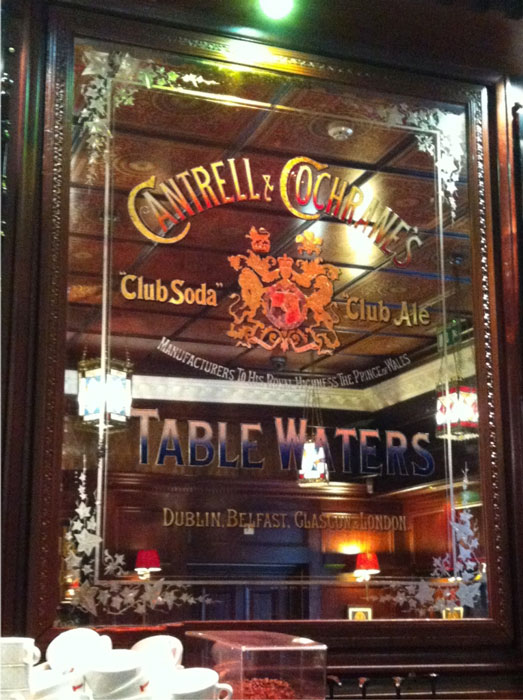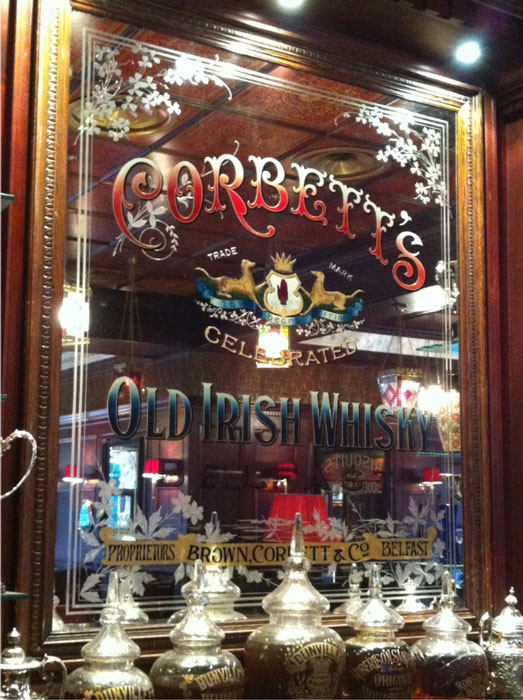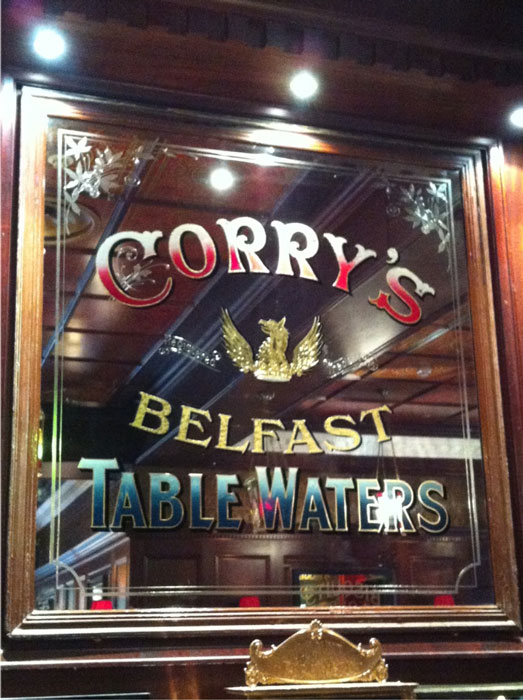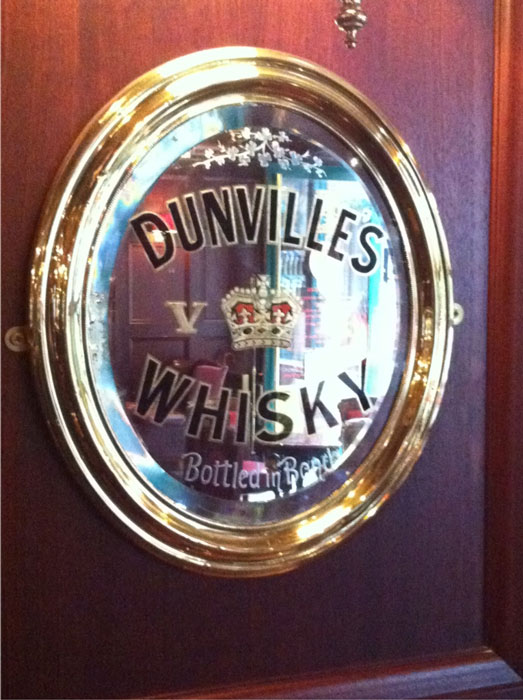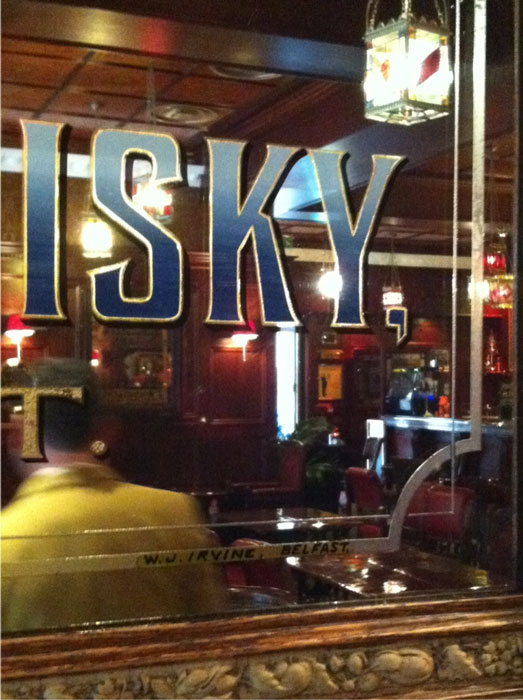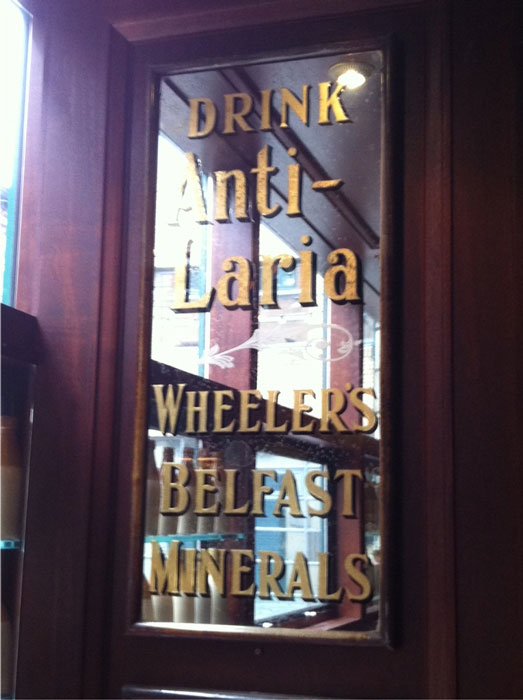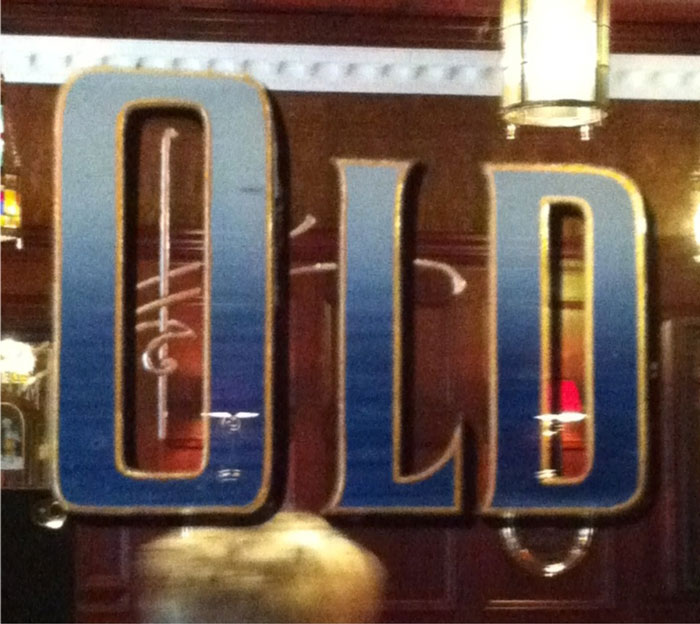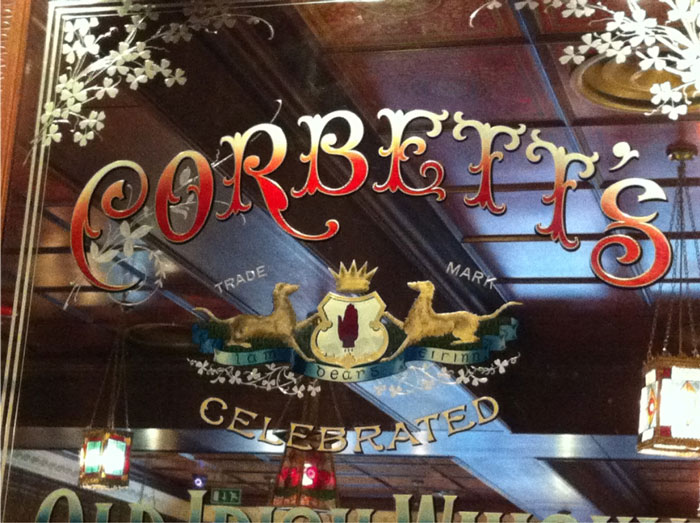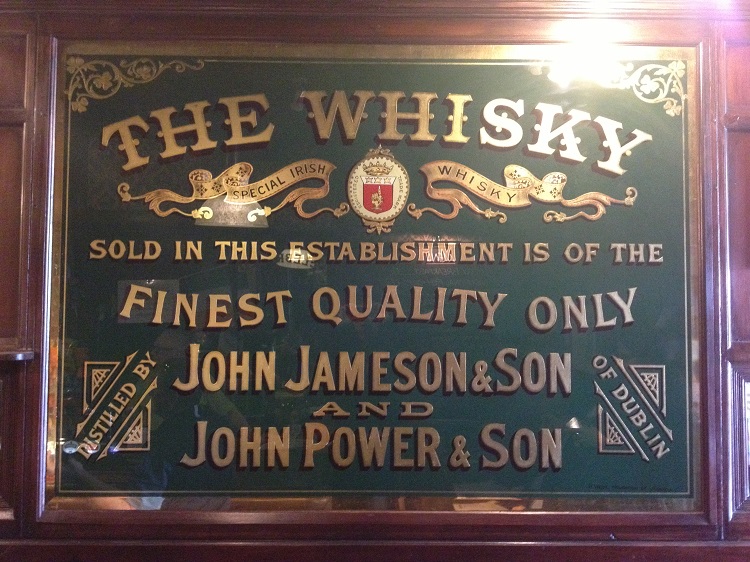
Irish Mirrors from Peter Mcullens travels
Posting these pictures on behave of my good friend Peter Mcullen from Ireland.
some lovely work on these panels.
Nice... they look as if they came from the same hand. Wonder what era they were crafted in.
All the above photos were taken in The Dark Horse ( a non alcoholic, strangely empty pub)
in Belfast, several were signed by a W. J. Irvine. Its a sister property to the Duke of York pub,
which is overflowing with similiar mirrors - both properties owned by an antiques dealer.
Non-alcoholic pub, in Ireland? That's a thing?
Beautiful mirrors though. So ornate.
W. J. Irvine
Other names: James Irvine (1890), W. J. Irvine & Sons (1941)
Active: 1890 - 1951
Business located at 40 Ann Street Belfast 1900 - 1935
Wonder if it's the same Co.
Try these other photos from Peter. All taken on his phone so the resolution is not that great .
I think Mr. Irvine must have been a sunny sort - lots of white space, not much use for thick or dark letters. The Corbetts letter is so inventive and cheerful; a very original form.
Does anyone remember Houlihan's Old Place Restaurants?
These Glass signs remind me of that restaurant back in the 80's and 90's.
The place was packed with them, mostly from across the pond.
All sorts of exceptional pieces, wood, metal, glass, gilded, carved, and even framed b&w photographs of exceptional window lettering.
Can't find any interior photos of the place...maybe someone on this forum has a few they could post.
Interesting to note that they all use the spelling "Whisky" without an "e". This is the typical spelling for Scotch "whiskies", but Irish and American are traditionally spelled "Whiskey", or "Whiskeys" in plural.
I have seen an original Dunville's poster with this spelling, but it is quite rare.
I've done several Irish pubs over the years including one with a special Whiskey bar, so I needed to get this spelling right, otherwise the staff never hear the end of it from pedantic whiskey/whisky enthusiasts. hahaha.
We had a Houlihans here in Ottawa. A number of years ago I was doing some glass work for an old client who'd been with the Houlihans and he said something to the effect that the guys who did the glass work were from California and they did a bunch of it on site. He did say there were 2 and that one of them was a bit crazy. I do believe Rick Glawson knew them as he mentioned some then un-known names to me...one may have been Ron Overby but this was along time ago and who knows if I'm any where near correct.
As to the disappearing "E" in whisky, as the author of a couple of pub signs I had it expained that if there was an "E" in the UK country there was an "E" in whiskey... the Scots being the inventor and probably the largest consumer of the fine beverage use it without the "E"